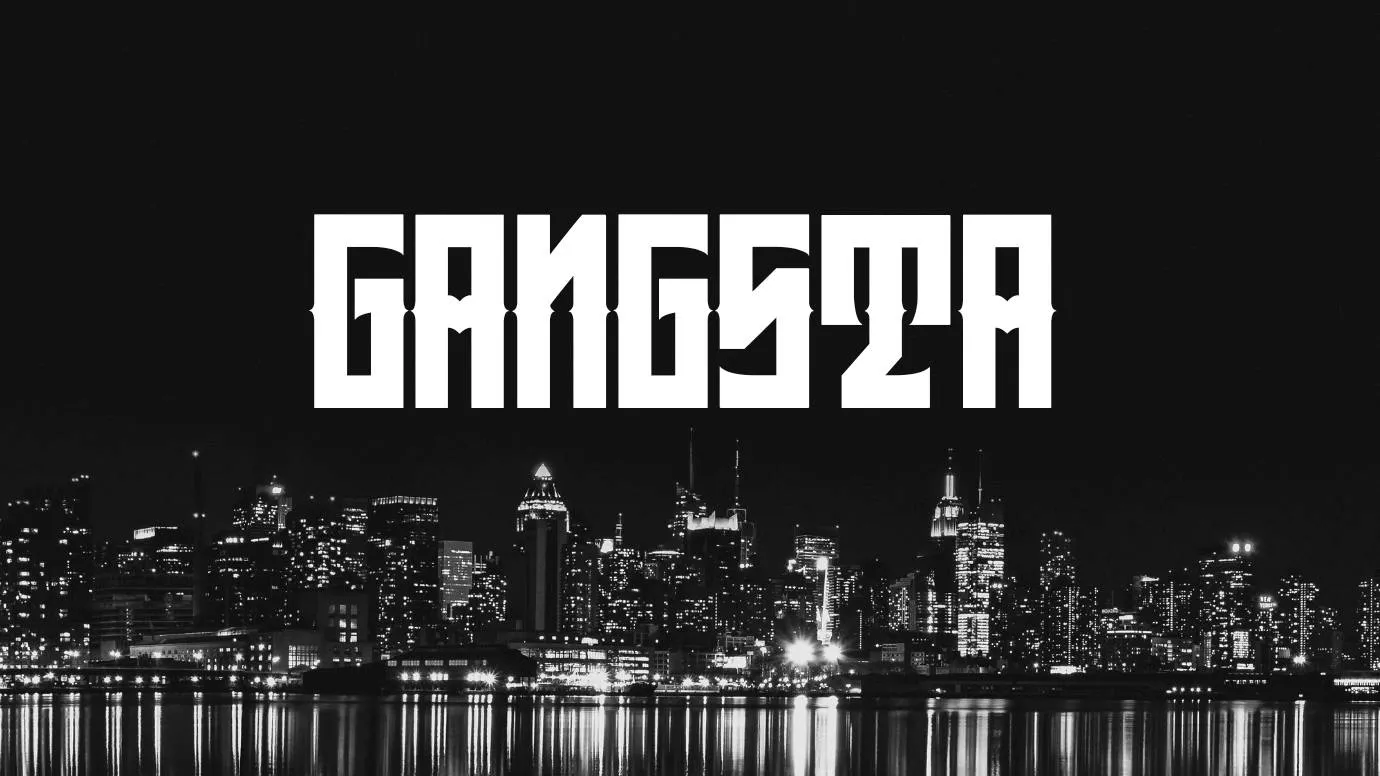
Gangsta Font Family
Gangsta Font Family is a very popular typeface. This classic typeface is in the gothic category of fonts. Richie Mx worked on the creation and design of this font family.
Gangsta Font
NameGangsta Font
TypeGothic
DesignerRichie Mx